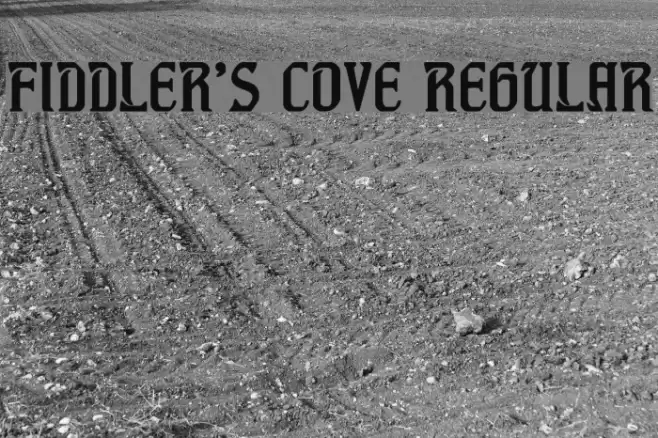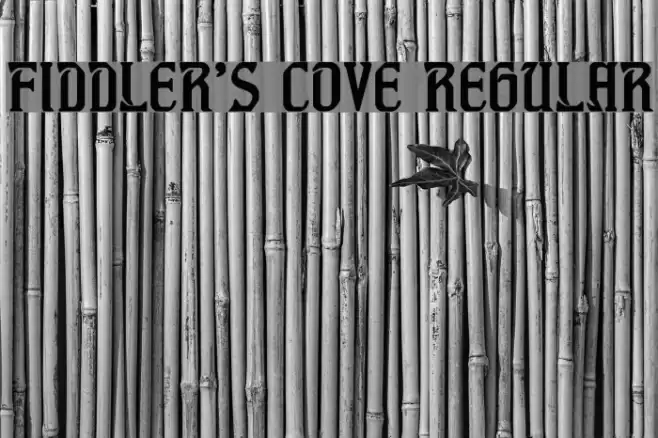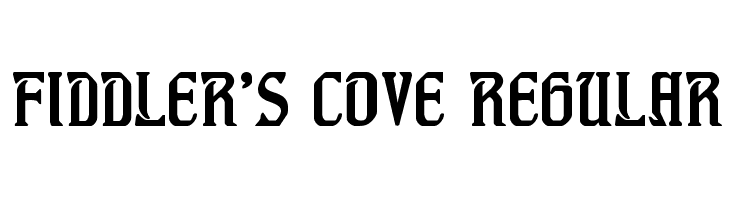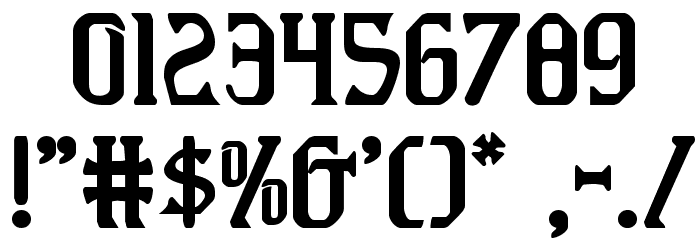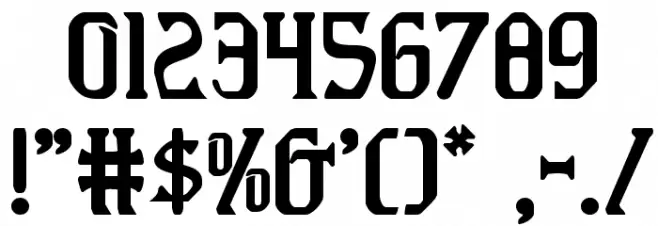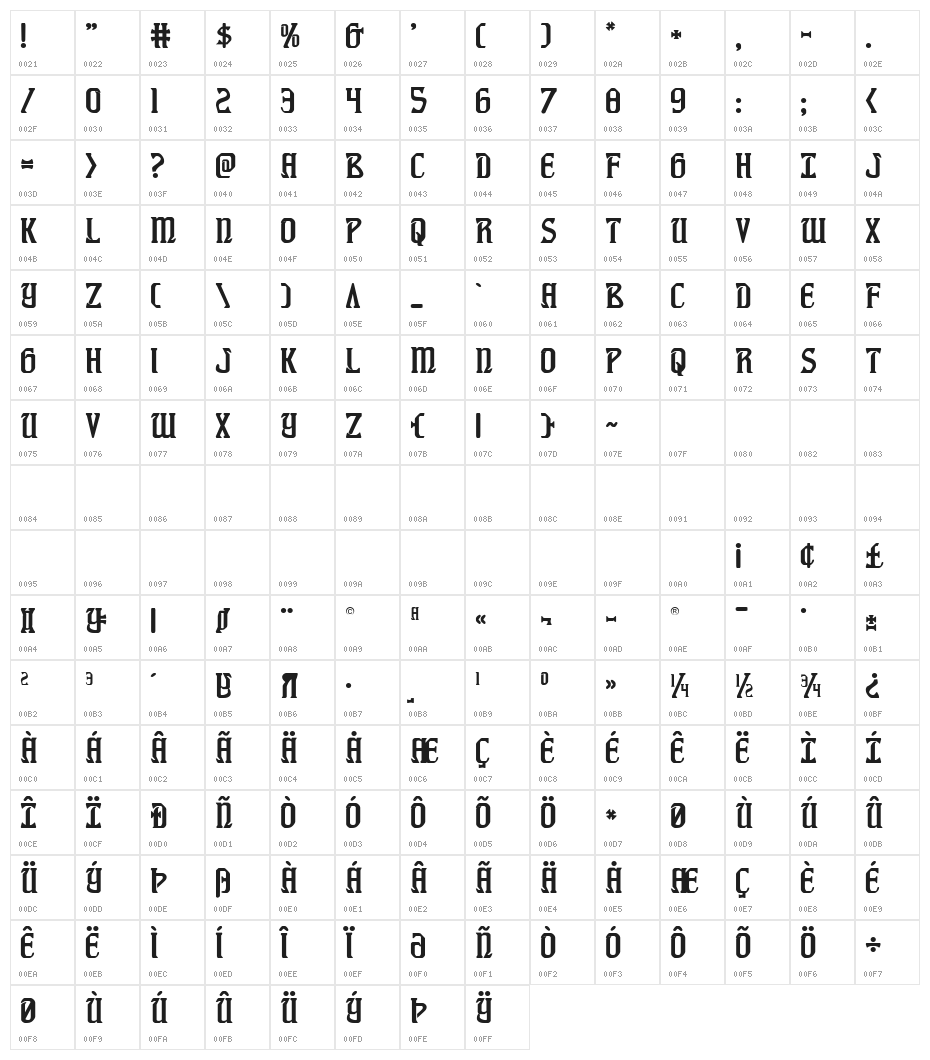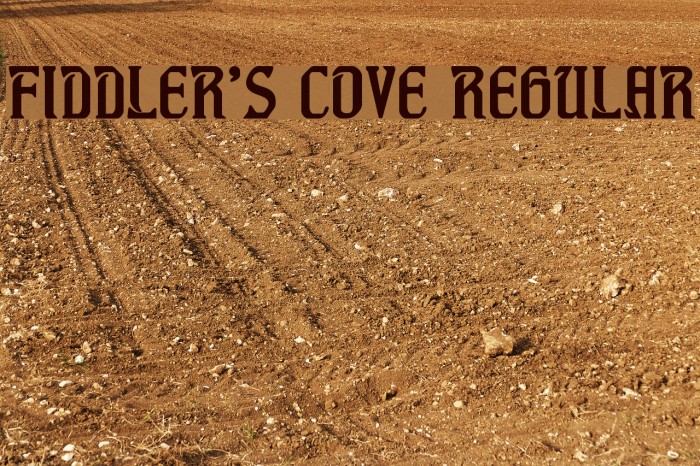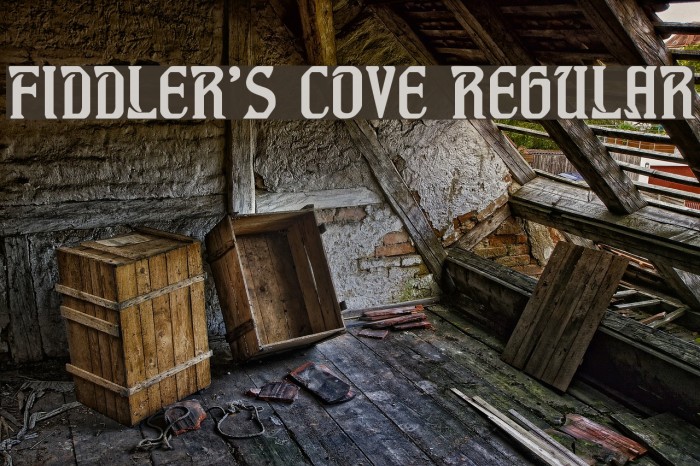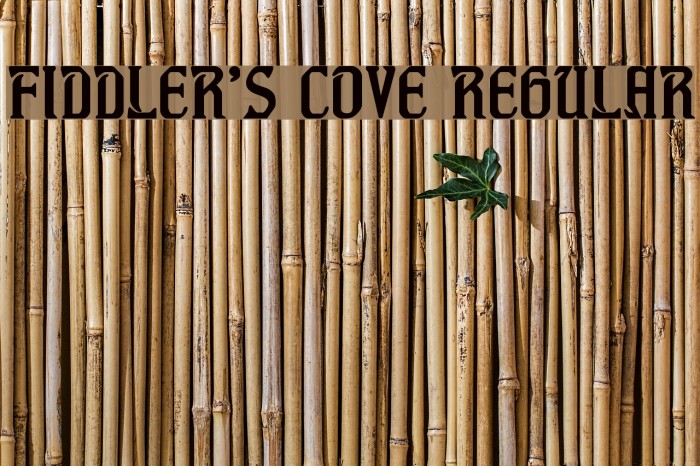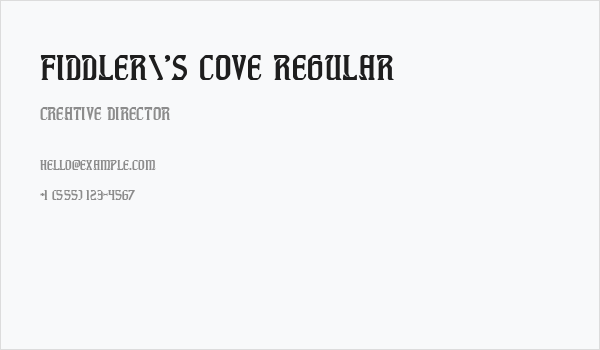
Fiddler's Cove Regular Font
Fiddler's Cove Regular Description
This font features a bold and striking design with a strong presence. The characters are crafted with sharp, angular edges and a distinct geometric style, reminiscent of traditional blackletter fonts. The uppercase letters are particularly prominent, with a commanding appearance that demands attention. The numerals and special characters maintain this bold aesthetic, ensuring consistency across all glyphs. The font's unique style makes it suitable for projects that require a dramatic and impactful visual element.
A bold, angular font with a blackletter-inspired design from Uncategorized fonts.
- Proposed Projects: Ideal for posters, logos, branding, and any design requiring a bold, dramatic typeface.